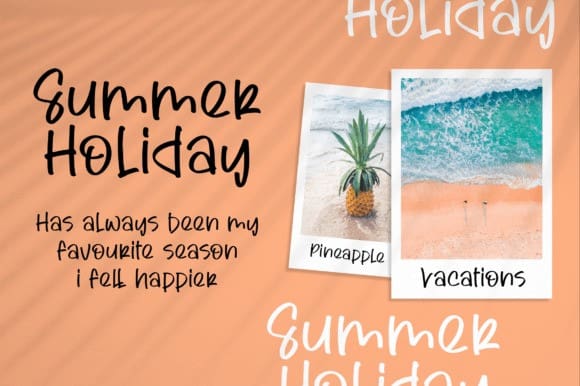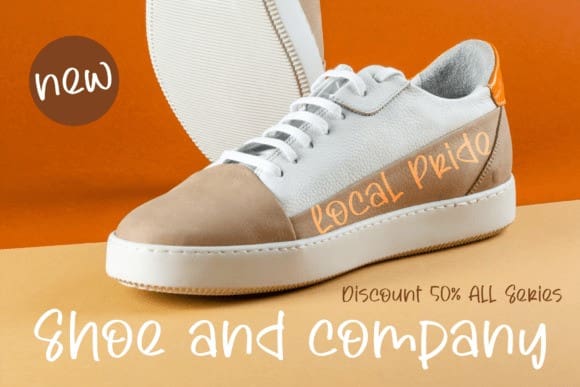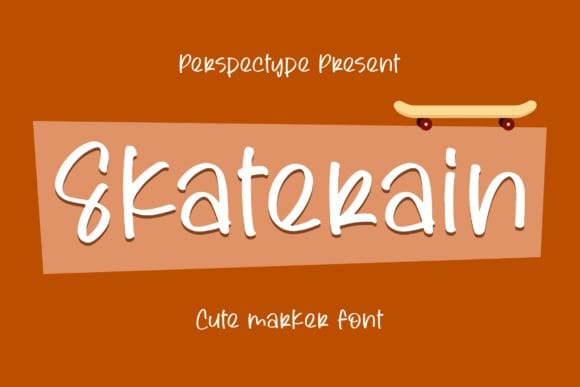
Skaterain Cute Marker Font
Skaterain Cute Marker Font, suitable for any projects such as logos, branding projects, homeware designs, product packaging, mugs, quotes, posters, shopping bags, t-shirts, book covers, name cards, invitation cards, greeting cards, labels, photography, watermark, special events, and all your other lovely projects that need a beautiful script taste.